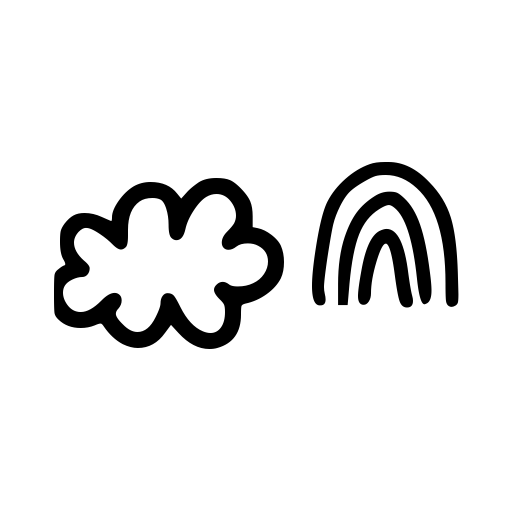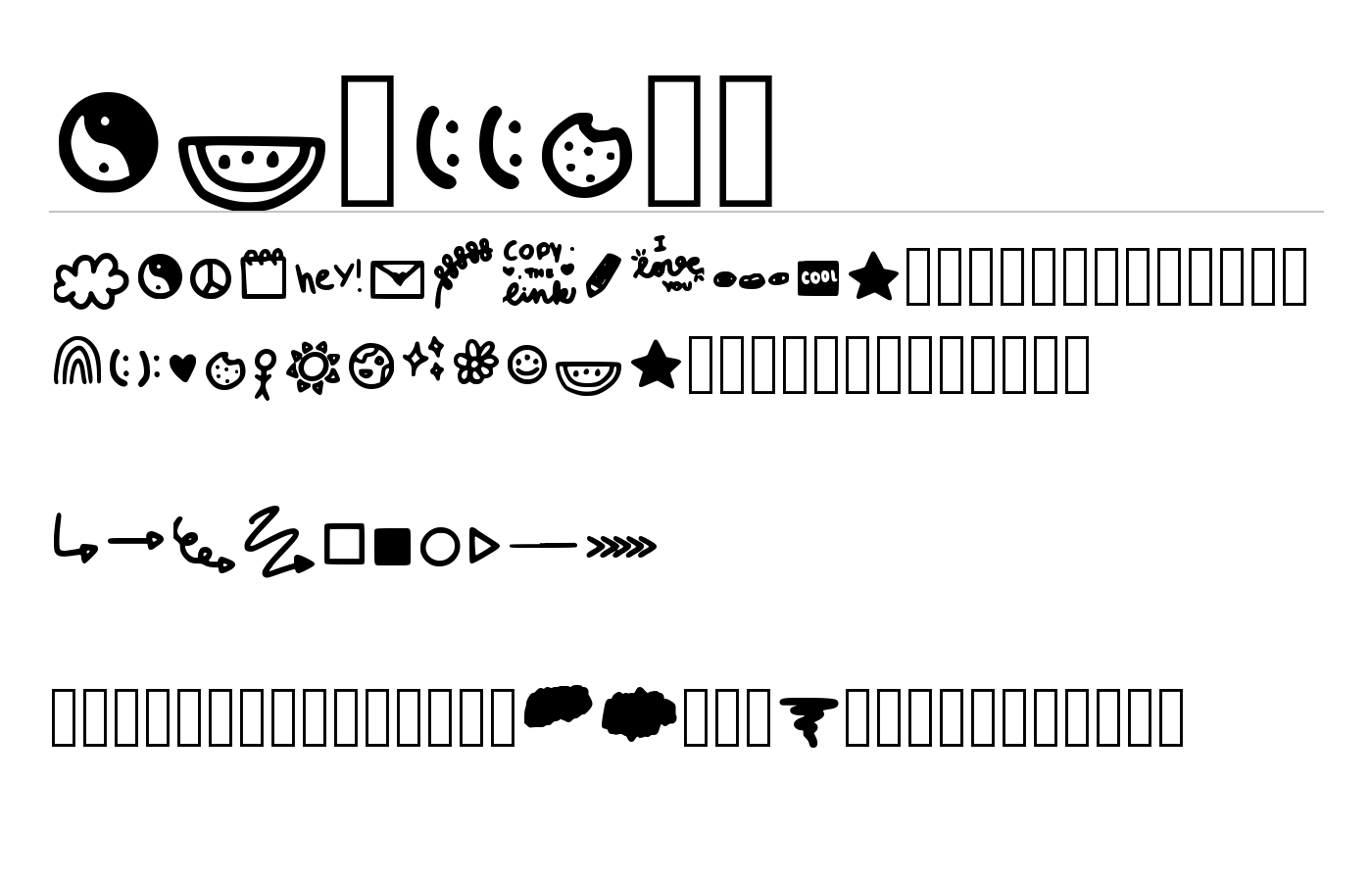
Blubbery Font is a playful, handwritten symbol font filled with whimsical doodles and icons that bring a fun, informal vibe to any design. Its bold, irregular shapes and casual strokes make it perfect for creative projects, kids’ materials, or anything that benefits from a friendly, lighthearted touch. Ideal for invitations, scrapbook projects, or eye-catching social media graphics, this font adds personality and charm where a traditional typeface might feel too stiff.
Blubbery Font
About Blubbery Font